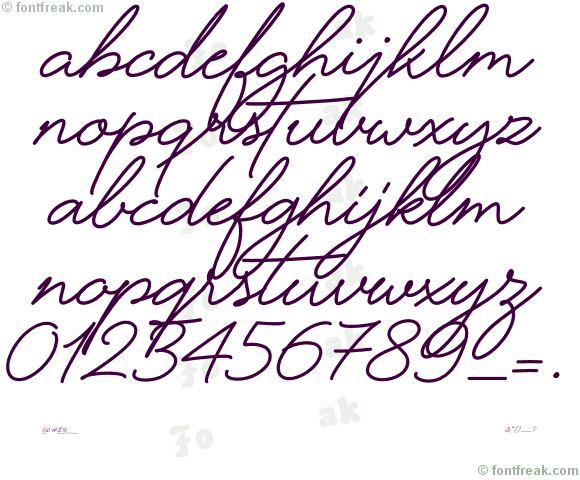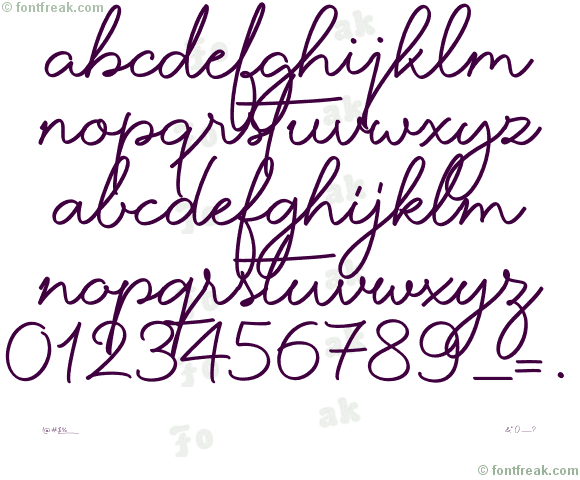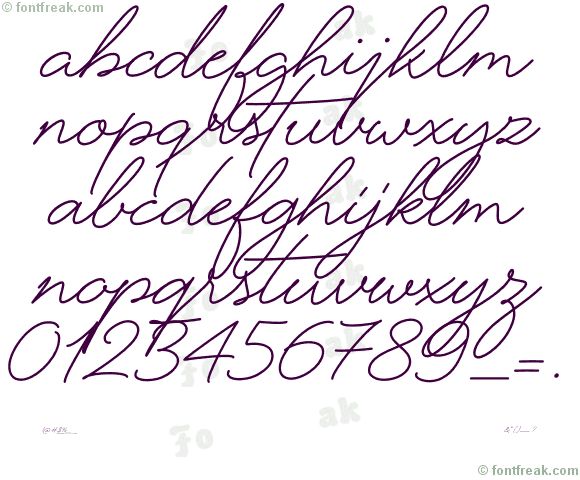
Eternate-Bold
Eternate
Eternate-Bold is a striking display font designed by Youssef Habchi, characterized by its unique blend of modern aesthetics and bold presence. This font falls under the category of decorative typefaces, making it suitable for a variety of creative applications. The visual style of Eternate-Bold features a strong stroke weight, giving it a commanding presence while maintaining a sense of elegance. Its clean lines and smooth curves create a balanced contrast that is visually appealing. The spacing is thoughtfully crafted, allowing for easy readability even at larger sizes, which enhances its overall effectiveness in design.
Eternate-Bold shines in several specific use cases. It is an excellent choice for wedding invitations, where its bold yet graceful style can convey a sense of celebration and importance. Additionally, it works beautifully for movie posters, providing a dramatic flair that captures attention. Restaurant menus can also benefit from this font, as it adds a touch of sophistication that elevates the dining experience. Furthermore, graphic designers looking to create eye-catching branding materials will find this font to be an invaluable asset.
The target audience for Eternate-Bold includes graphic designers, small business owners, and content creators who seek a font that stands out and makes a statement. Its versatility allows it to be used across various platforms and mediums, from digital to print.
What sets the Eternate-Bold font apart is its ability to blend boldness with elegance, making it a compelling choice for those wanting to leave a lasting impression. For anyone interested in enhancing their design projects, the Eternate-Bold font free download provides an opportunity to incorporate this exceptional typeface into their work, ensuring creativity and uniqueness in every design.